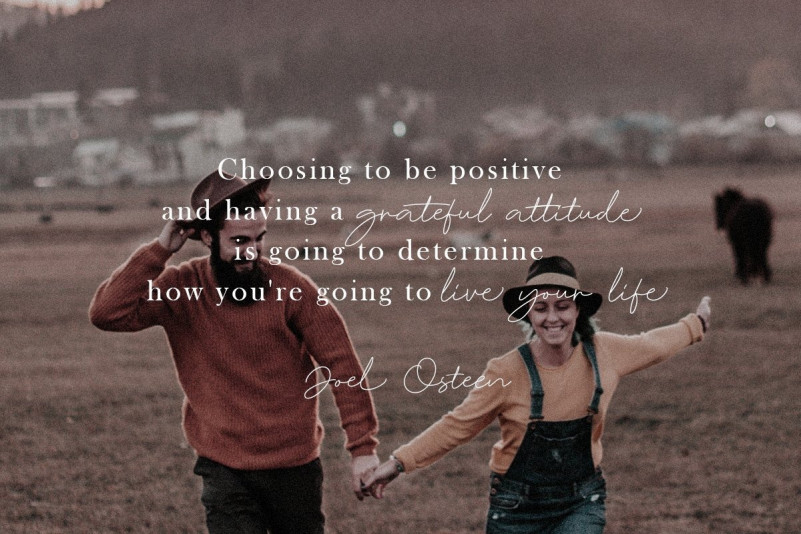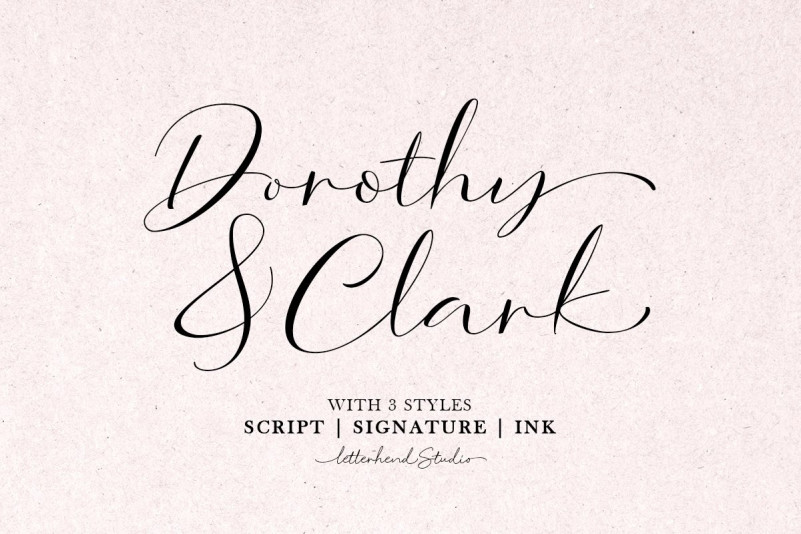
Dorothy Clark Script Font
Introducing Dorothy Clark Font. This is a modern calligraphy font . It’s was handwritten under the inspiration of modern calligraphy. It creates a luxurious and elegant look in design. It is was designed by Letterhend Studio. A stylish script comes with 3 styles, regular script, signature script and ink script. This typeface has unique opentype feature as you can see the explanation at 2nd preview image. This font perfectly made to be applied especially in logo, and the other various formal forms such as invitations, labels, logos, magazines, books, greeting / wedding cards, packaging, fashion, make up, stationery, novels, labels or any type of advertising purpose.